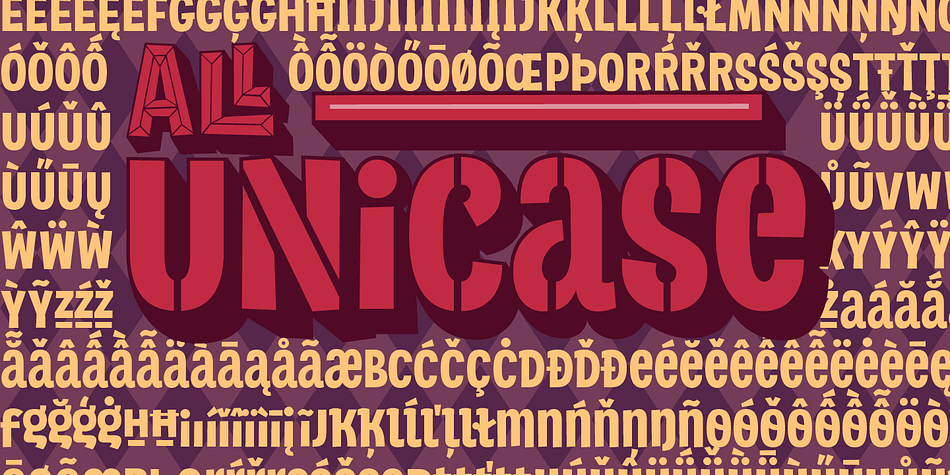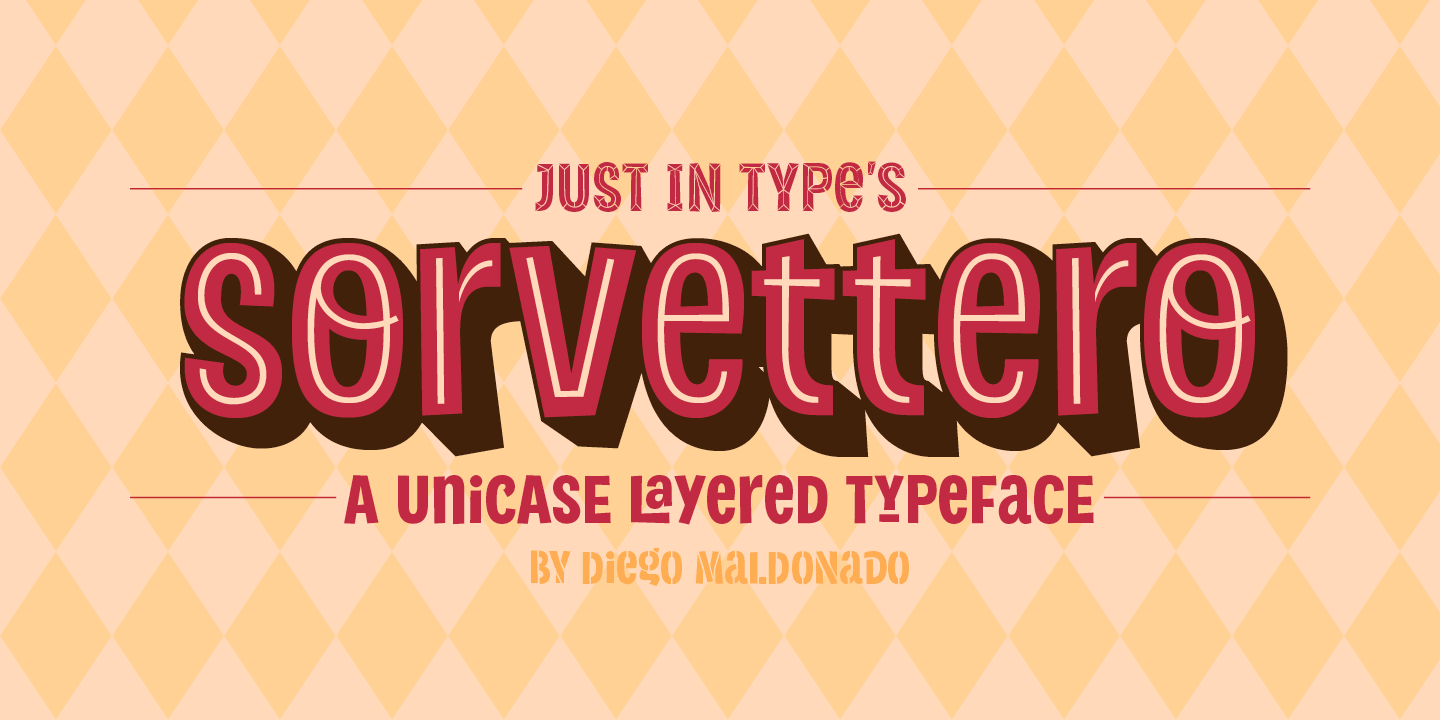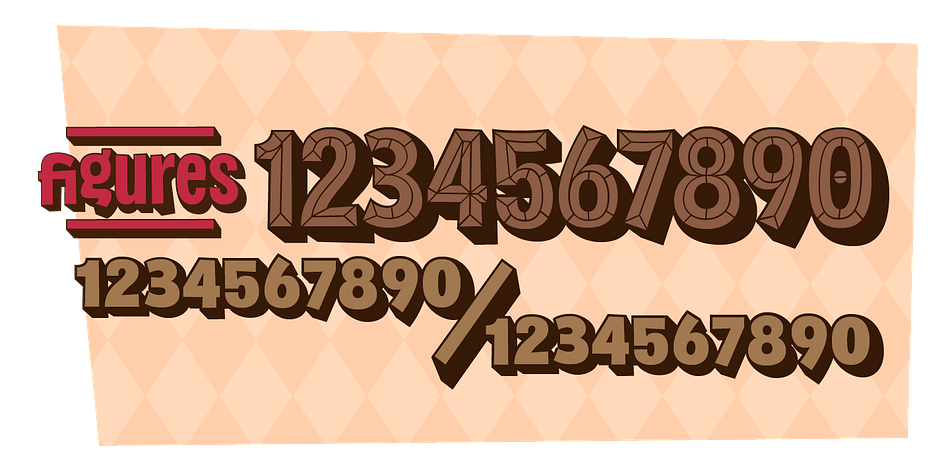
Designed by Diego Maldonado, Sorvettero is a multiple classification font family. This typeface has six styles and was published by Just In Type.
Sorvettero is a sans, layered and unicase typeface inspired by some wood signs at Descansópolis, a neighborhood on Campos do Jordão, a city of Brazil.
It is a fun and cute display project with many different options for usage like packaging, logos, signs and whatever your creativity brings on.